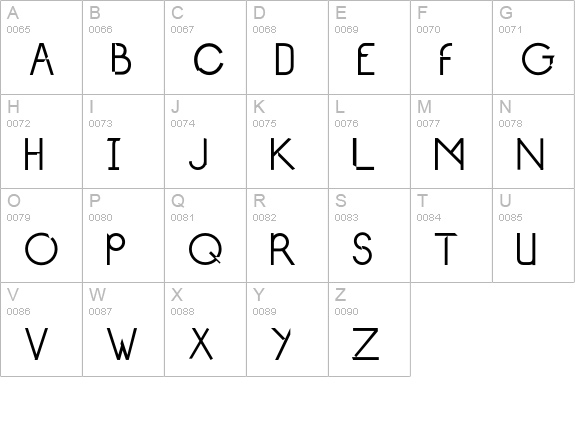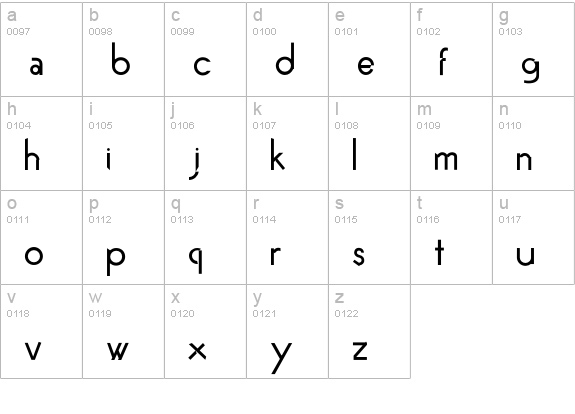
Imbalance Font Details
Introducing Imbalance font - a visually captivating typeface that flawlessly balances elegance and edginess. With its unique fusion of sharp angles and smooth curves, Imbalance exudes a sense of modern sophistication while retaining a hint of rebelliousness. Imbalance font is designed to make a statement, capturing attention and leaving a lasting impression. Its bold strokes and distinct letterforms add a touch of dynamism and personality to any design project. Whether you're creating eye-catching headlines, captivating logos, or striking posters, Imbalance font will effortlessly elevate your work to new heights. But what sets Imbalance font apart is not just its striking aesthetics; it is also free. Yes, you read that right – Imbalance font is freely available to download at FontsMarket.com. This means that you can unleash your creativity without any financial constraints, making it the perfect choice for both personal and commercial projects. With Imbalance font at your disposal, you have the freedom to explore endless creative possibilities. Its versatility allows it to be seamlessly integrated into a wide range of design styles and themes, from modern and minimalist to bold and experimental. The extensive character set ensures that you can express yourself fully, no matter the language or typographic requirement. Imbalance font is meticulously crafted with attention to detail, ensuring legibility and readability across various mediums. Whether it's in print or on the screen, Imbalance font remains crisp and clear, delivering your message with utmost clarity and impact. So don't miss out on this opportunity to enhance your design arsenal with Imbalance font. Experience the power of this captivating typeface and let your creativity flow freely. Download Imbalance font now at FontsMarket.com and embark on a journey of limitless design possibilities.